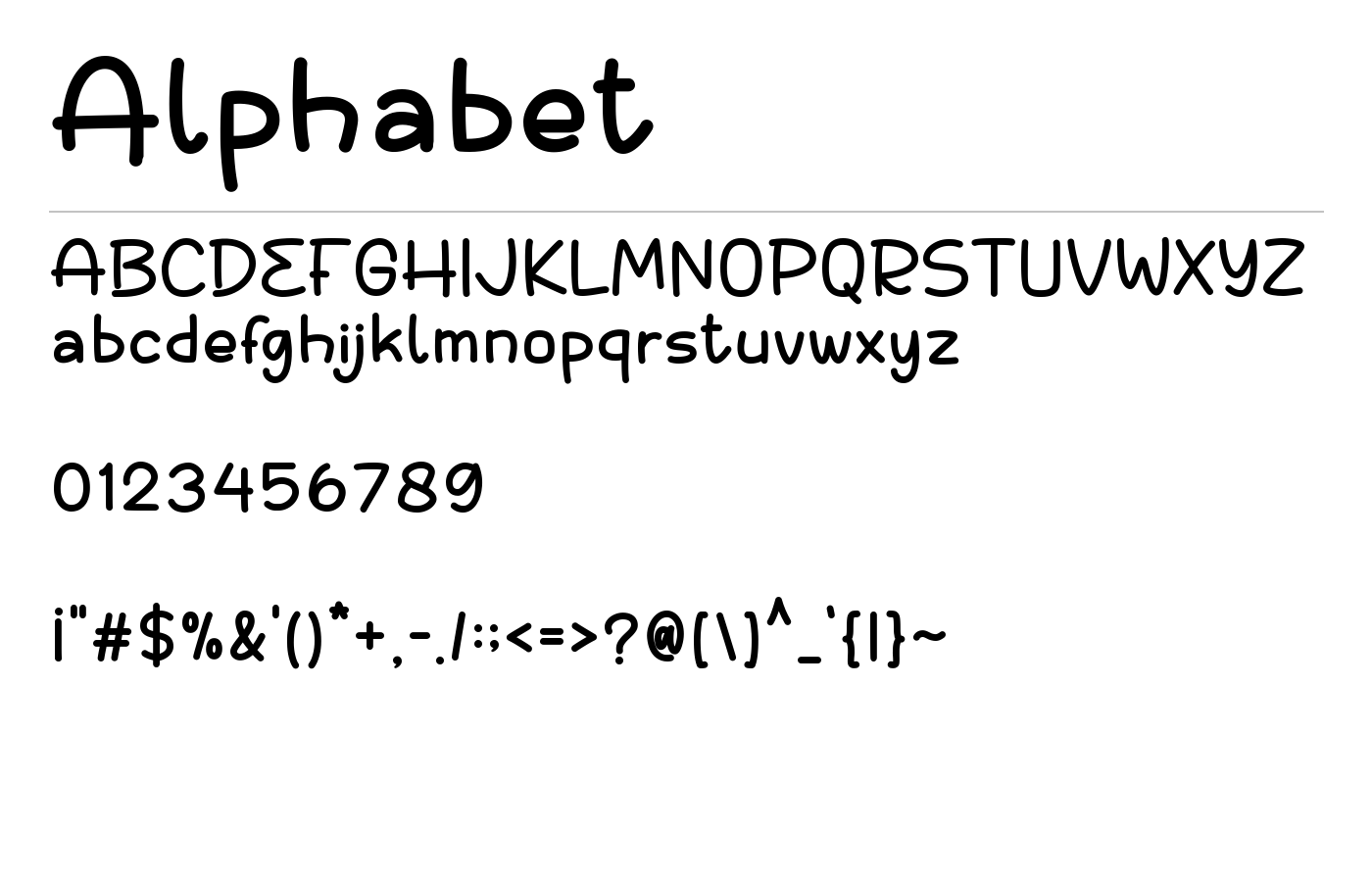
Alphabet Font is a playful, casual sans serif with a hand-drawn feel, featuring rounded strokes and medium weight that make it friendly and approachable. Its clear, simple letterforms with slight irregularities add personality and warmth, making it ideal for children’s content, informal branding, and creative projects needing a fun, human touch. This font works well for headlines, invitations, and websites where a cheerful, relaxed tone is desired.
Alphabet Font
About Alphabet Font
| Font family | Alphabet Font |
| Designer | Risma Ramawi |